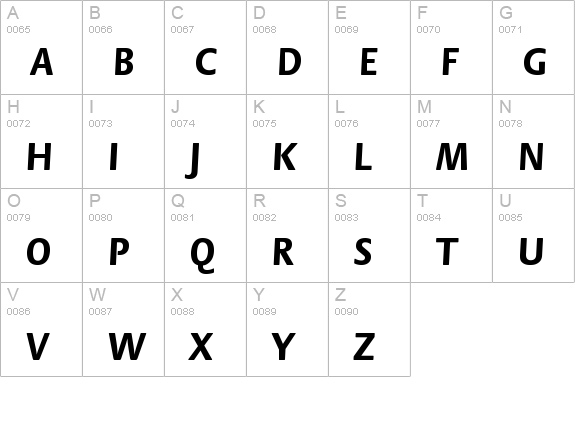
FloraICG-Bold is a strong, high-contrast variant in the FloraICG typeface family \xE2\x80\x94 well suited to headlines, attention-grabbing titles, and strong calls-to-action.
FloraICG-Bold is a stunning and versatile font that exudes elegance and sophistication. Its bold and dynamic design makes it perfect for creating eye-catching headlines and titles that demand attention. This font is ideal for projects that require a touch of flair and creativity. And the best part? FloraICG-Bold is completely free to download at FontsMarket.com! Now you can access this beautiful font without any cost, allowing you to add a touch of class to your designs without breaking the bank. Don't miss out on this fantastic opportunity to enhance your projects with the exquisite FloraICG-Bold font. Download it today and elevate your design game to the next level!